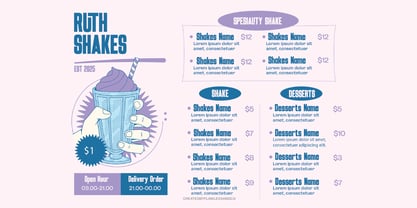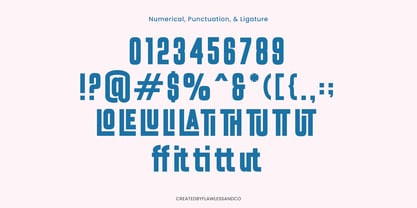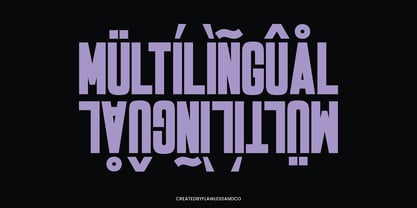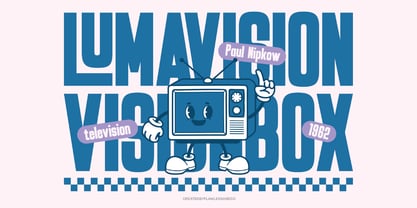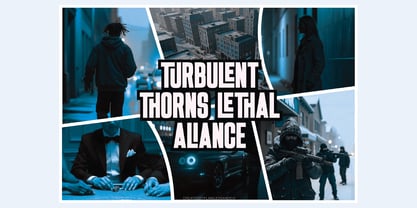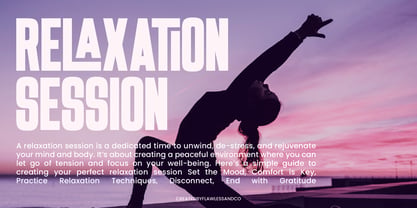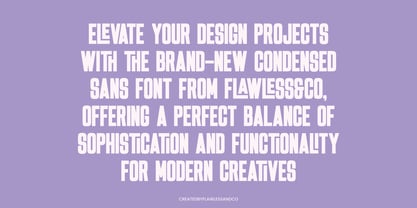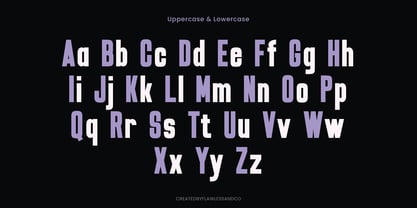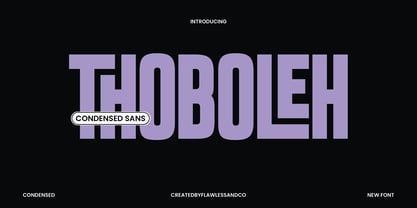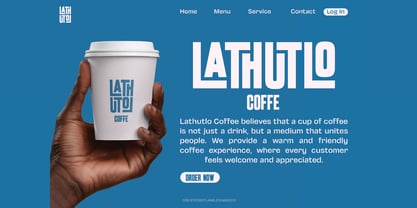
Thoboleh
The Thoboleh Font Family was designed by Achmad Yani and published by Flawlessandco. Thoboleh contains 1 styles. More about this family
Thoboleh is a modern condensed sans serif font that combines clarity with bold character. With its tall, narrow letterforms and minimalistic design, Thoboleh is perfect for headlines, posters, logos, branding, and editorial layouts where space efficiency meets strong visual impact. Its clean structure and sleek proportions give off a professional and contemporary vibe, making it suitable for both digital and print projects. Whether you're aiming for urban cool or modern sophistication, Thoboleh delivers with style and precision.
Features :
Multilingual, Uppercase alphabet A-Z, Lowercase alphabet a-z, Numbers 0-9, Some punctuation, Alternates & Ligatures